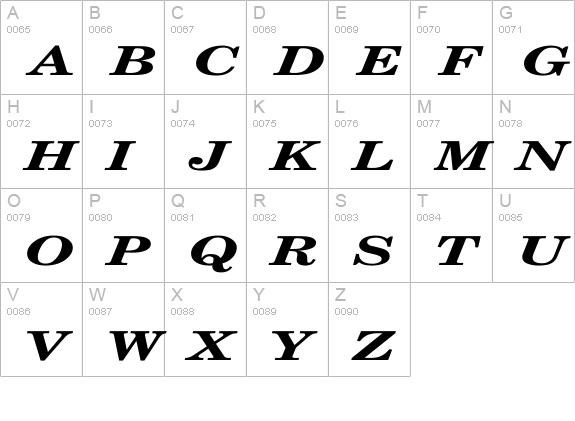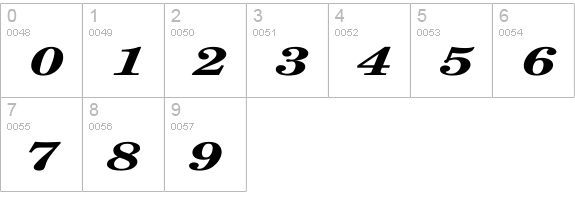
NewCenturySchlbk-BoldItal Ex Font Details
NewCenturySchlbk-BoldItal Ex is a bold and stylish font that exudes elegance and sophistication. Its sleek italic design adds a touch of modern flair to any project or design. This versatile typeface is perfect for creating eye-catching headings, titles, and logos. The best part about NewCenturySchlbk-BoldItal Ex is that it is available for free download at FontsMarket.com. This means that you can easily access this premium font without any cost, making it a valuable addition to your font collection. Whether you're designing a website, creating a poster, or crafting a branding identity, this font is sure to make a bold statement. With its unique blend of classic and contemporary elements, NewCenturySchlbk-BoldItal Ex is a must-have for any designer looking to elevate their projects. Download it for free today and unleash your creativity with this stunning font.